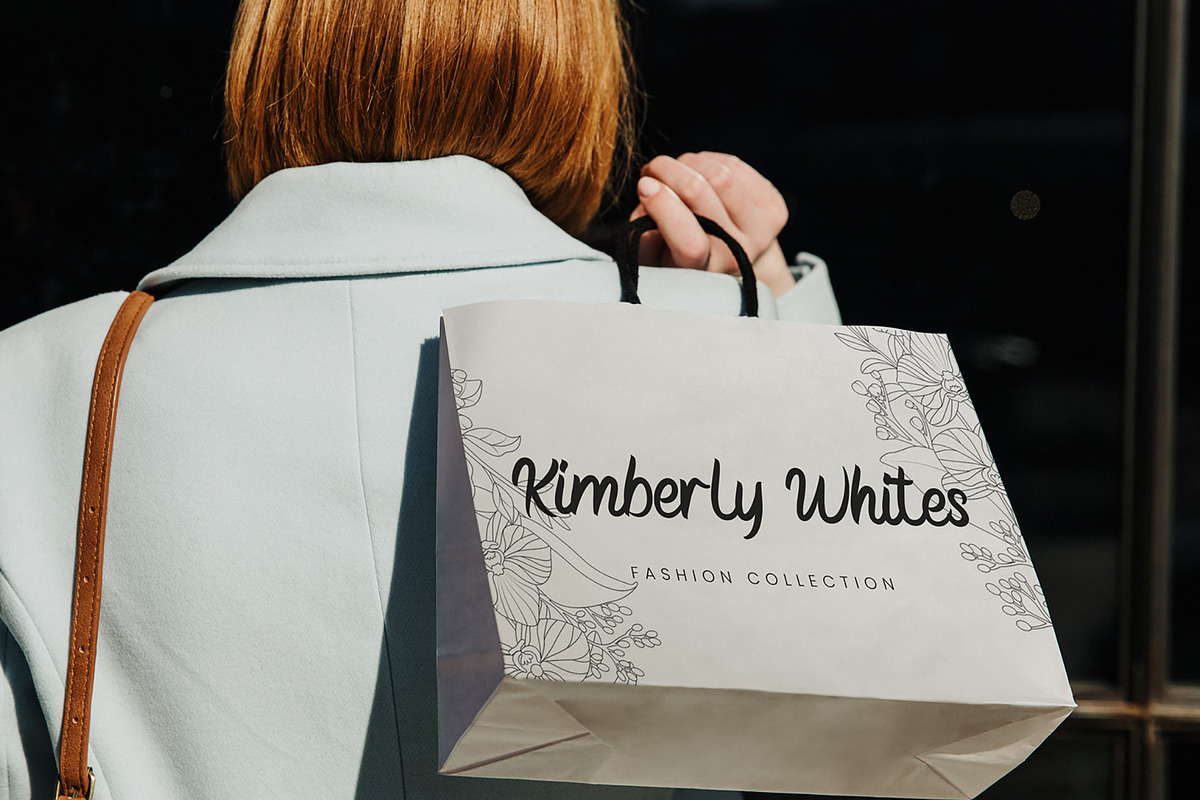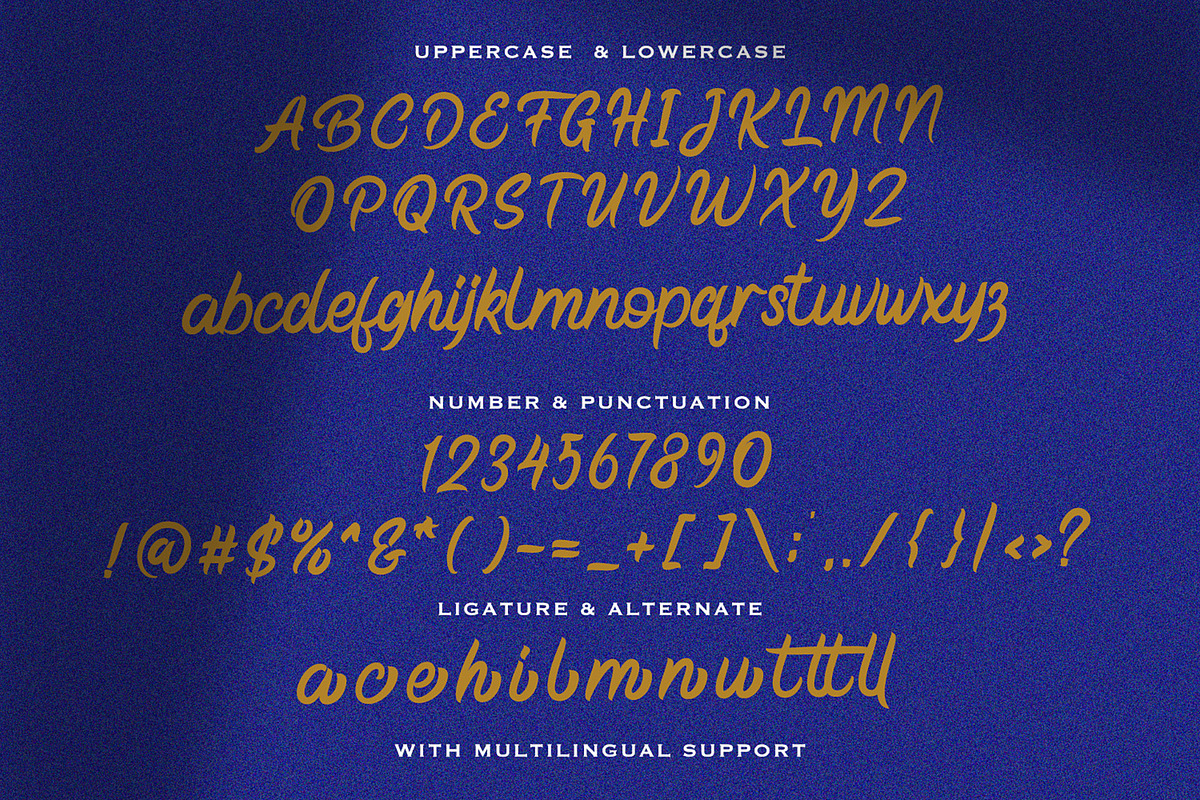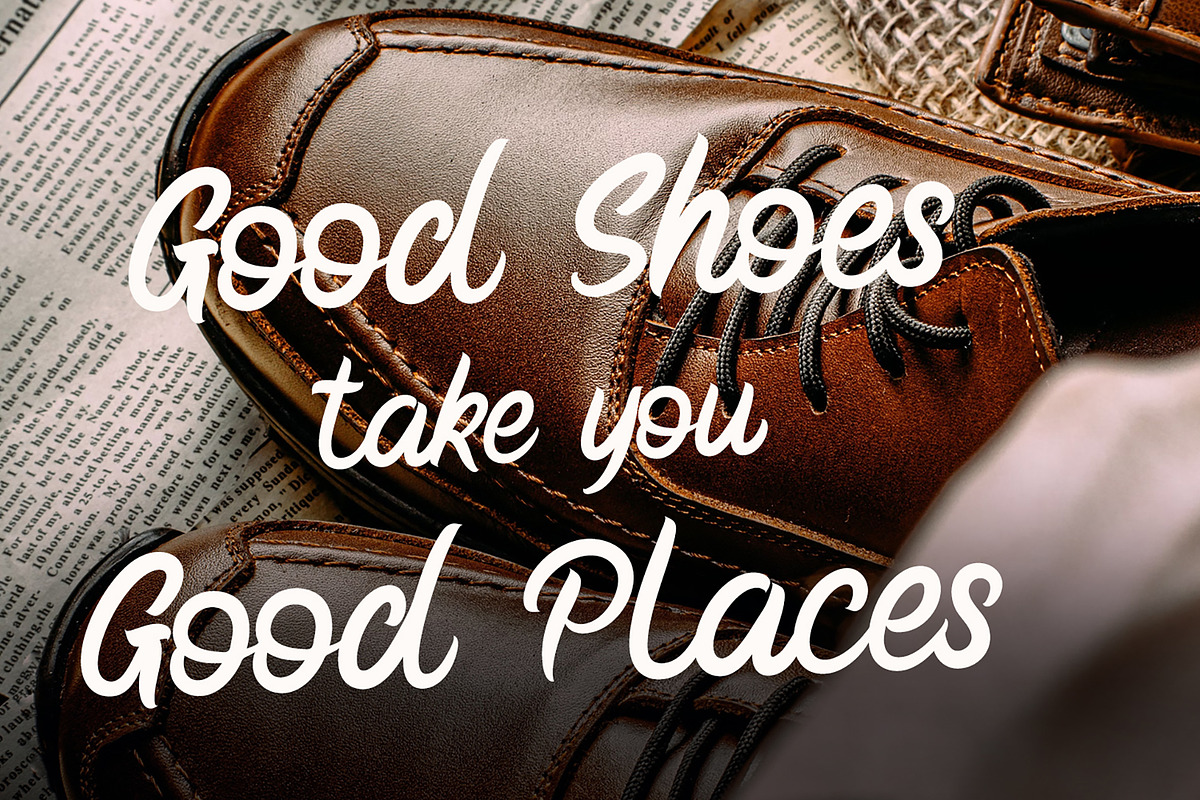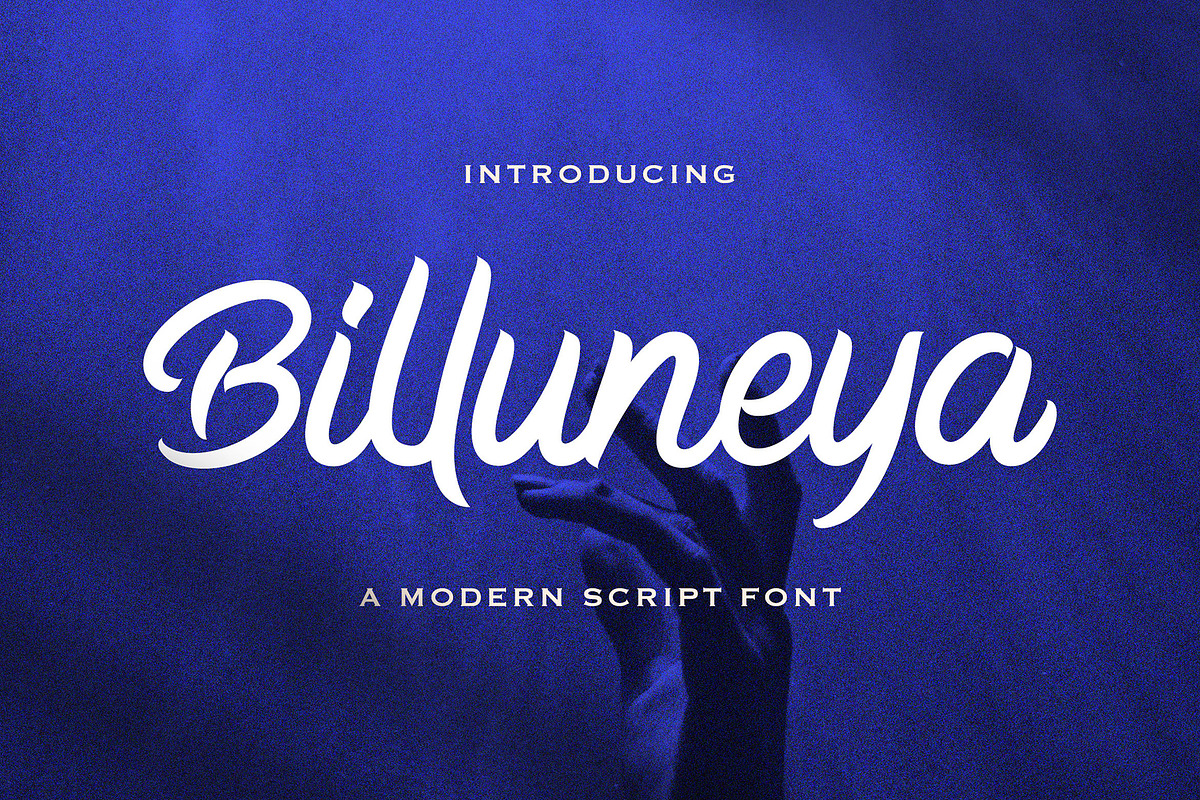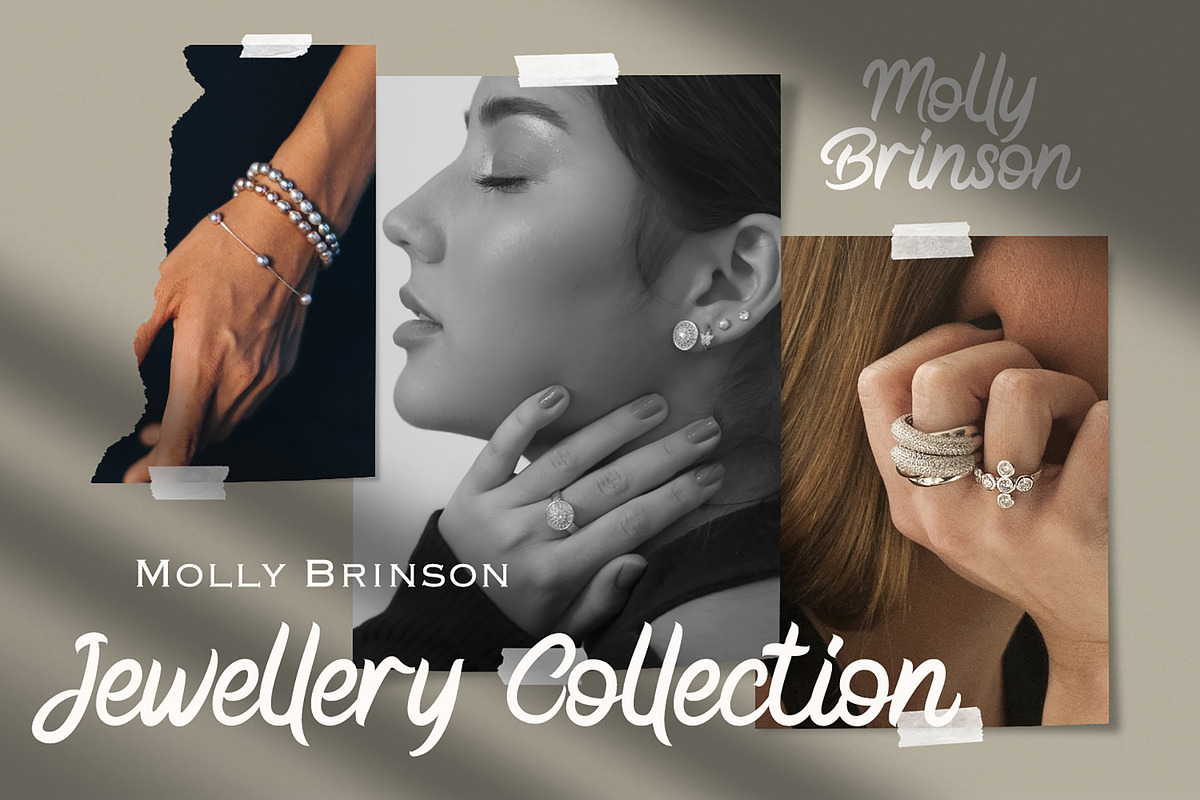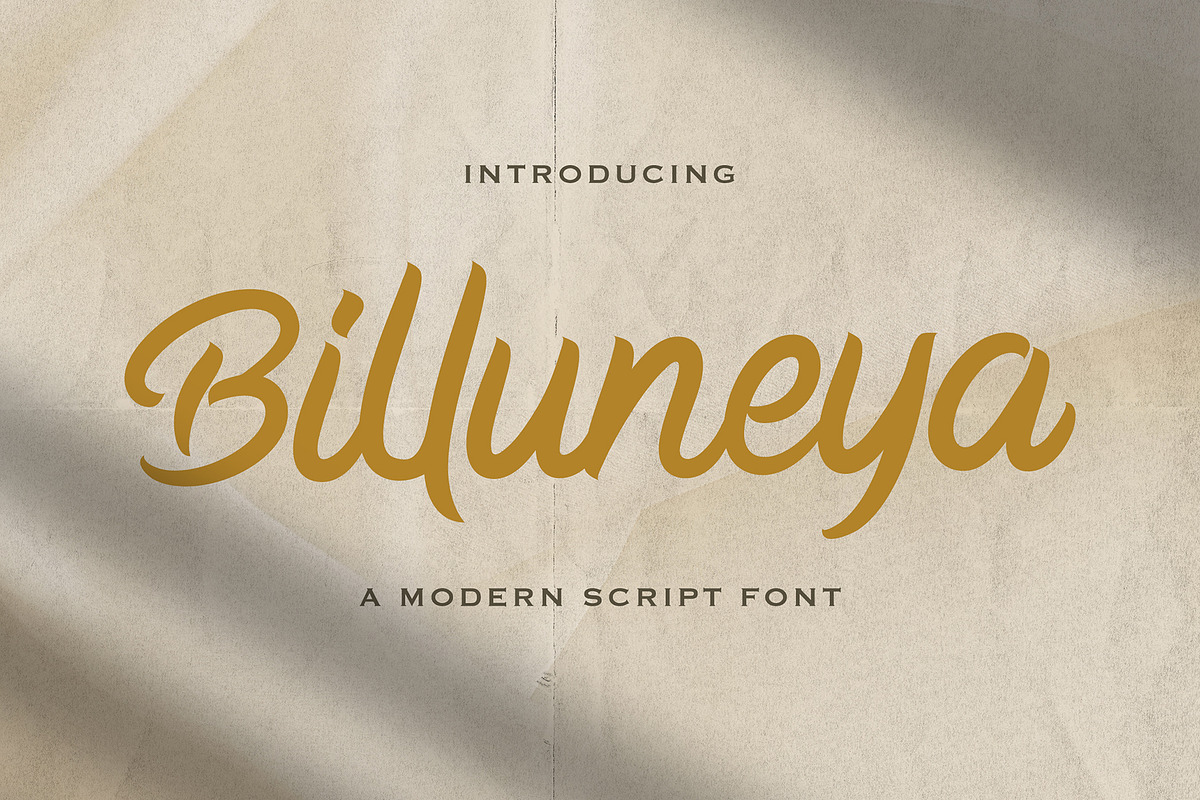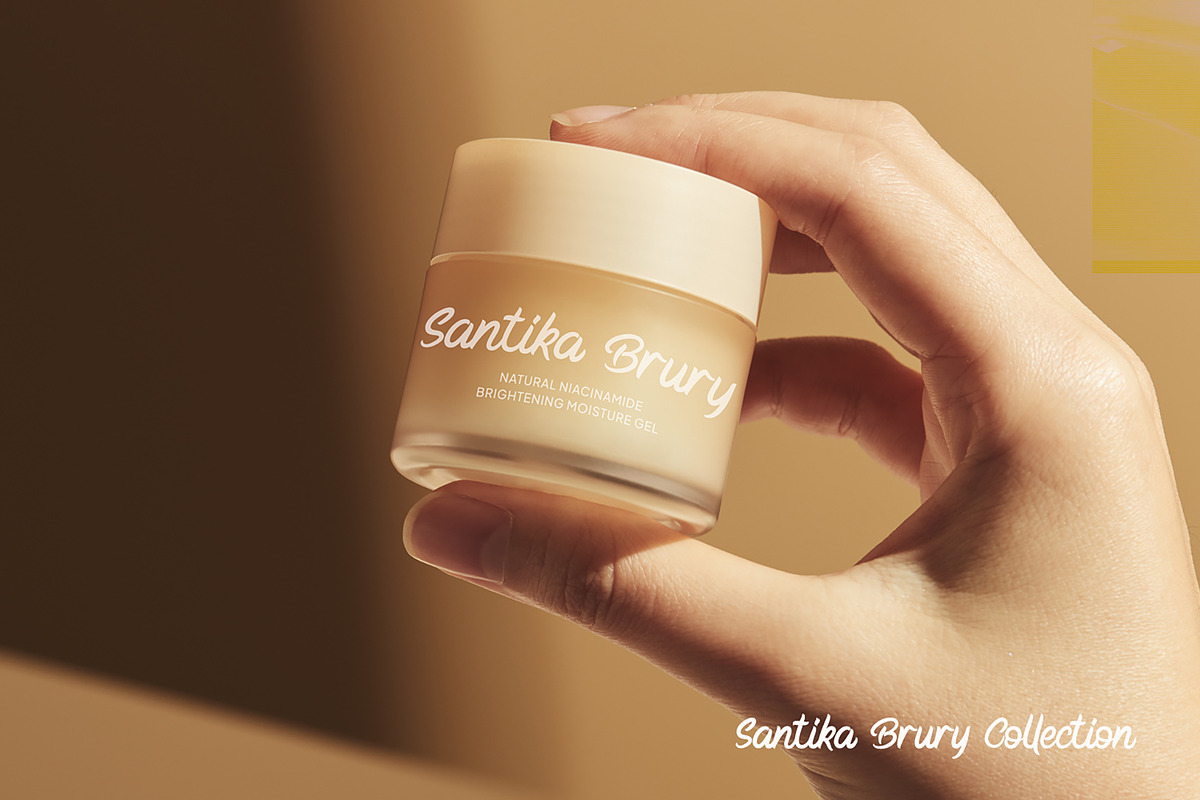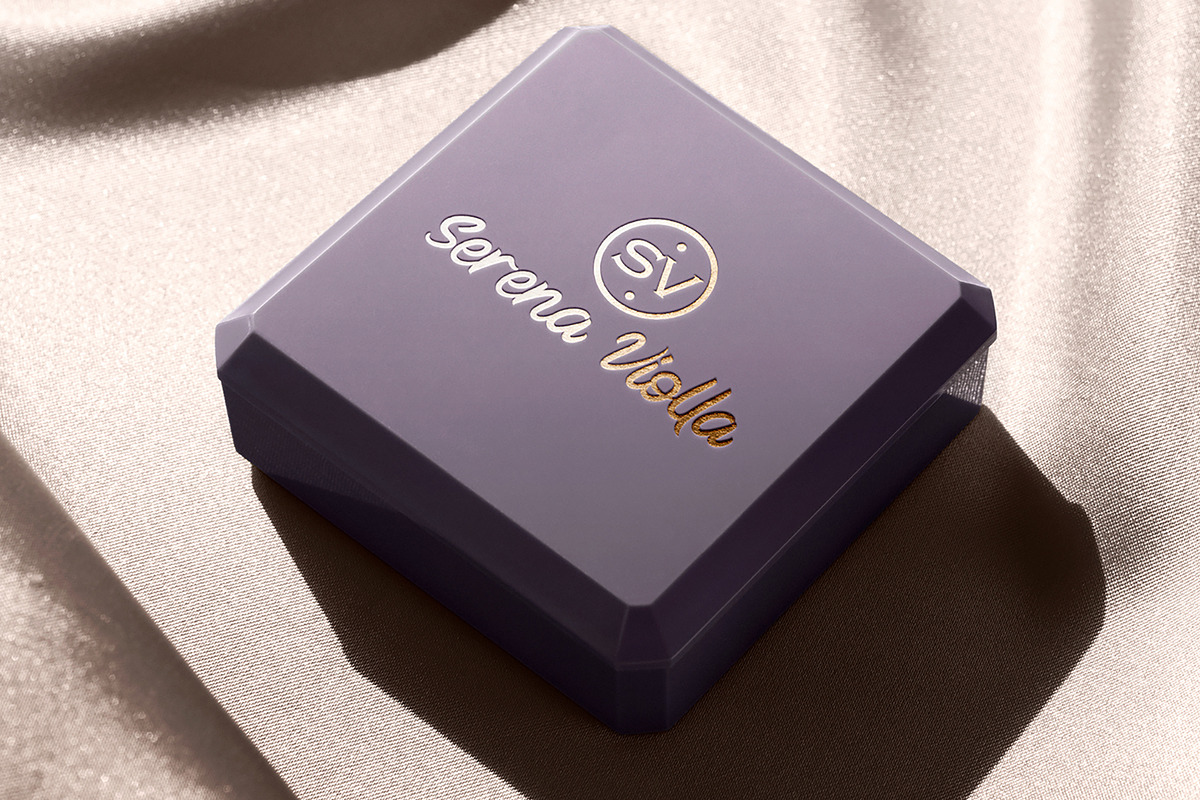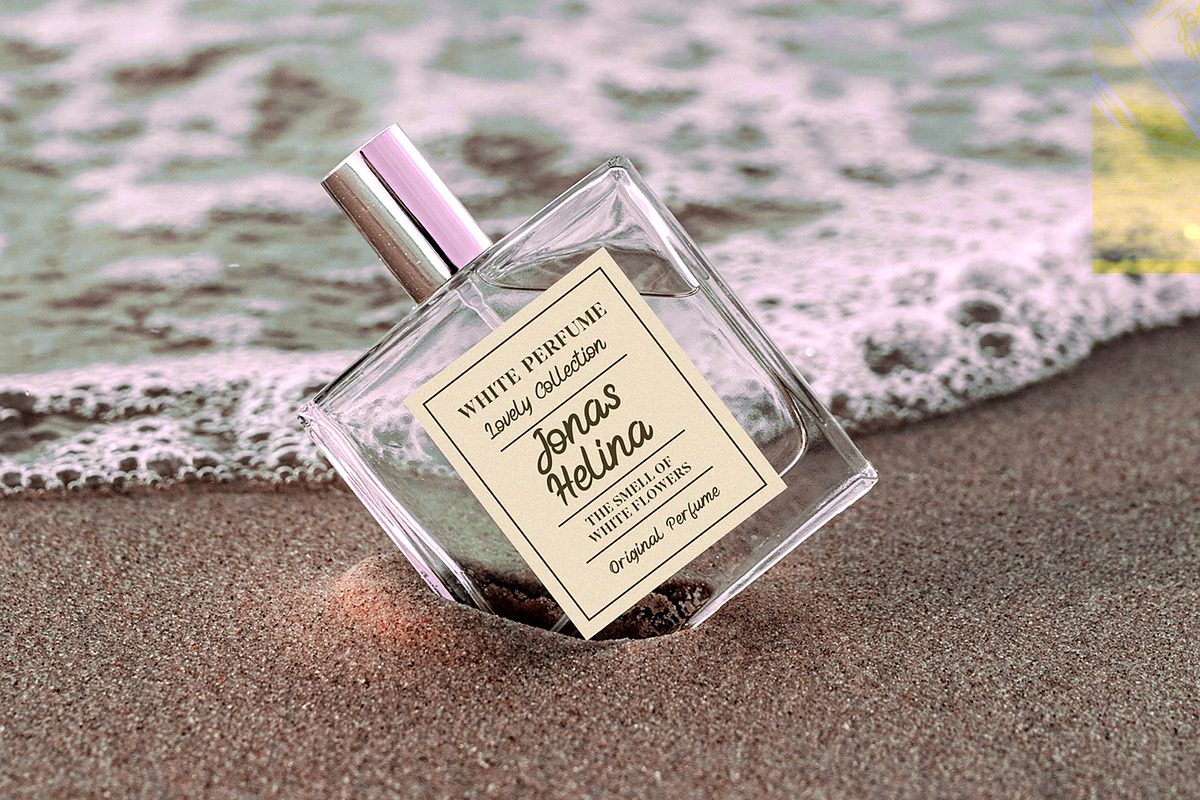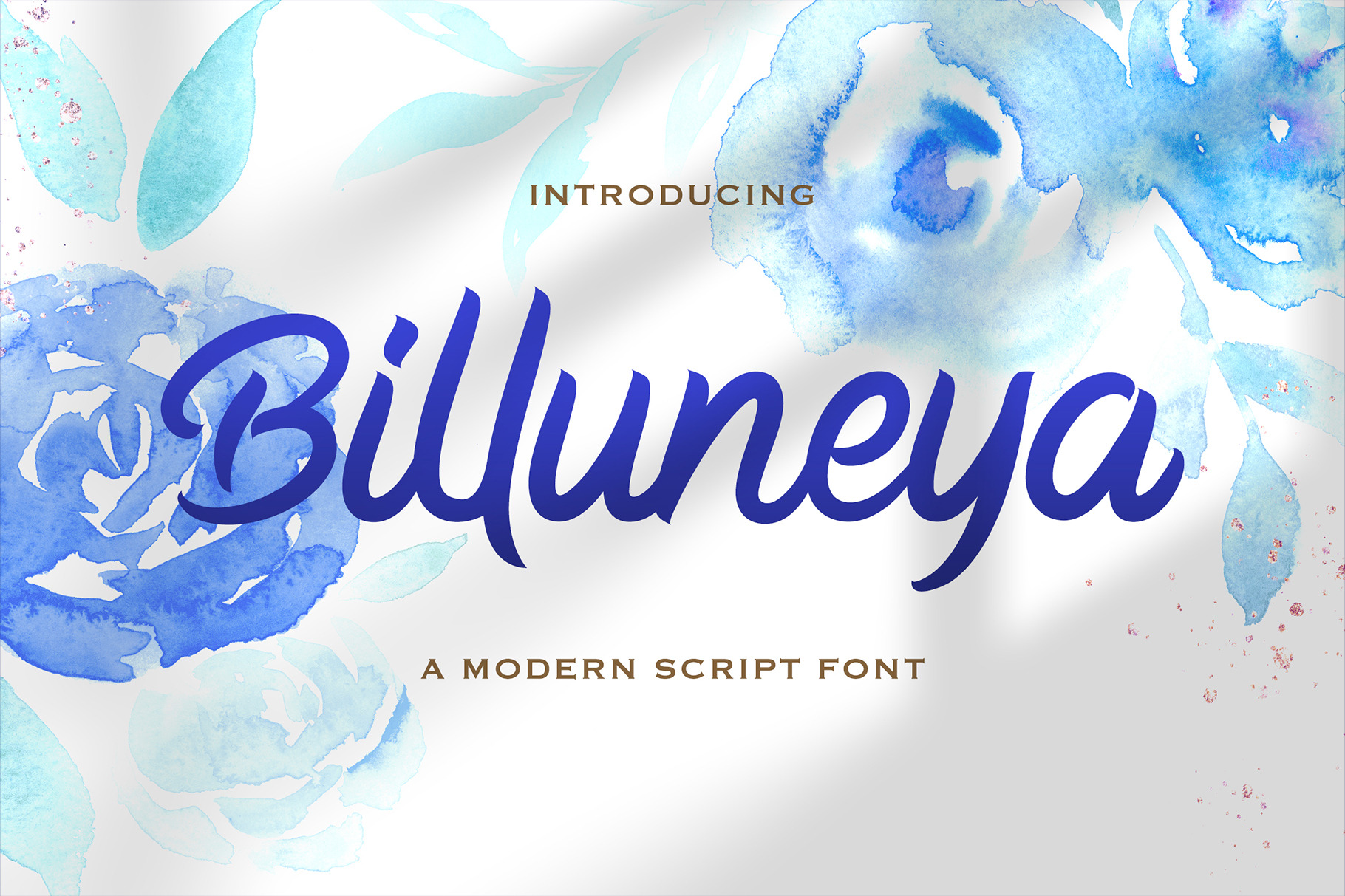
Billuneya - Modern Script Font
Modern, Aesthetic, Fancy, & Premium Script Font
Perfect for Logotype, brand logo, apparel design, clothing, fashion, creative industry, signature, headline/title on poster, brochure, packaging, wedding invitation, quotes, magazine, social media etc.